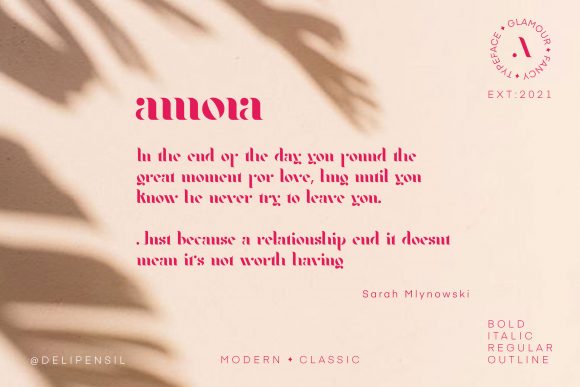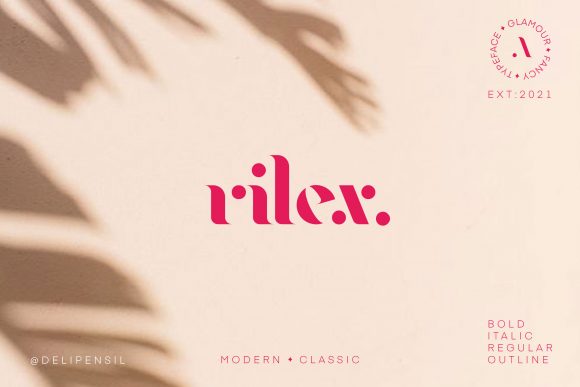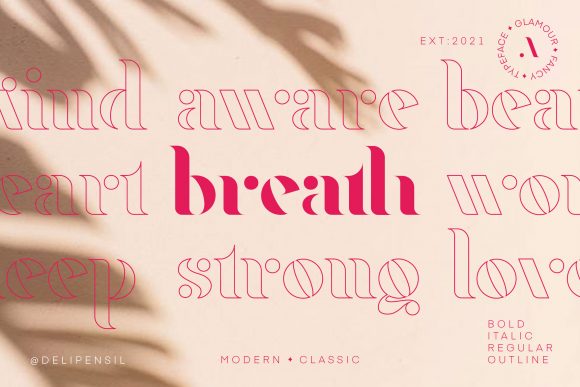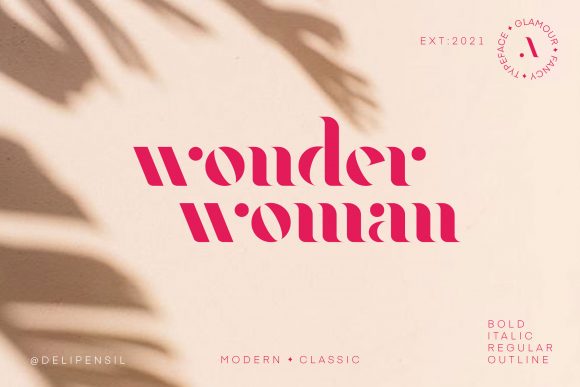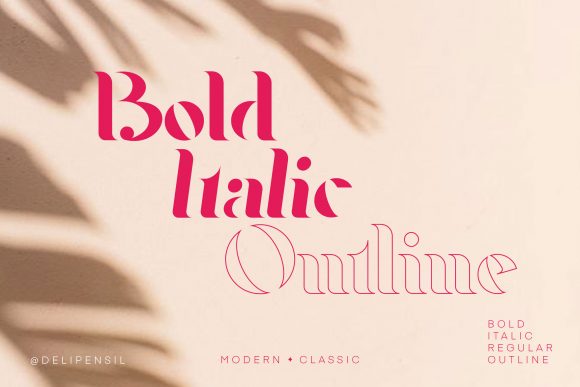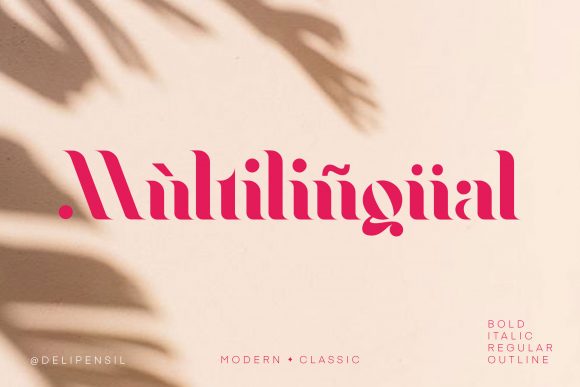
The Perfect Font for Your Masterpiece: Alohai Font
Have you ever stared at a blank canvas, wondering where to start? The cursor blinks, and your mind goes blank. You know exactly what you want to create – something breathtaking, something elegant, something that stands out. This is where the magic begins, and the right font can be the key to unlocking your creativity. For designers, finding that perfect font can be a game-changer.
Enter the Alohai Font, a stunning display font that is sure to elevate your designs to new heights. With its modern and unique design, this font is perfect for making your creations look truly out of this world. Whether you’re working on a web design, business card, or any other project, the Alohai Font is an ideal choice for adding a genuine touch.
Aloha Font Key Features
- Unique Characteristics: Aloha Font features a unique blend of traditional Hawaiian and modern design elements, creating a distinctive and eye-catching visual style.
- Font Style: Aloha Font is available in various styles, including Regular, Bold, Italic, and Bold Italic, offering flexibility for different design applications.
Alohai Font Review
Aloha, fellow designers! Today, I’m excited to share my thoughts on the Alohai Font. As a designer, I’m always on the lookout for unique and eye-catching typography, and Alohai definitely delivers. Here’s what I love about it:
- ✨ Unique Character: Alohai’s blend of modern and traditional elements gives it a distinctive personality that sets it apart from other fonts.
- ✨ Versatility: Whether you’re designing a logo, heading, or body text, Alohai adapts seamlessly to different contexts and styles.
- ✨ Legibility: Despite its flair, Alohai remains highly legible, making it an excellent choice for various design applications.
However, like any font, Alohai has its limitations:
- ⚠️ Limited Character Set: Alohai’s character set is relatively limited, which may cause issues when working with non-English text or special characters.
- ⚠️ Overuse: Alohai’s unique style can be overwhelming if overused. Balance is key when incorporating this font into your design.
Overall, I’m impressed with Alohai’s potential and versatility. With careful use and consideration of its limitations, this font can elevate your designs to the next level. Give it a try and see how it works for you!
Tips for Getting the Most Out of Alohai Font
To get the most out of Alohai Font, try the following:
– Use it in combination with other fonts to create a unique and visually appealing design.
– Experiment with different font sizes and styles to create visual interest.
– Use Alohai Font in headings and titles to add a touch of elegance and sophistication.
Alohai Font is commonly used in:
– Luxury branding and packaging
– High-end marketing materials and advertising
– Creative and artistic projects that require a unique and elegant touch.